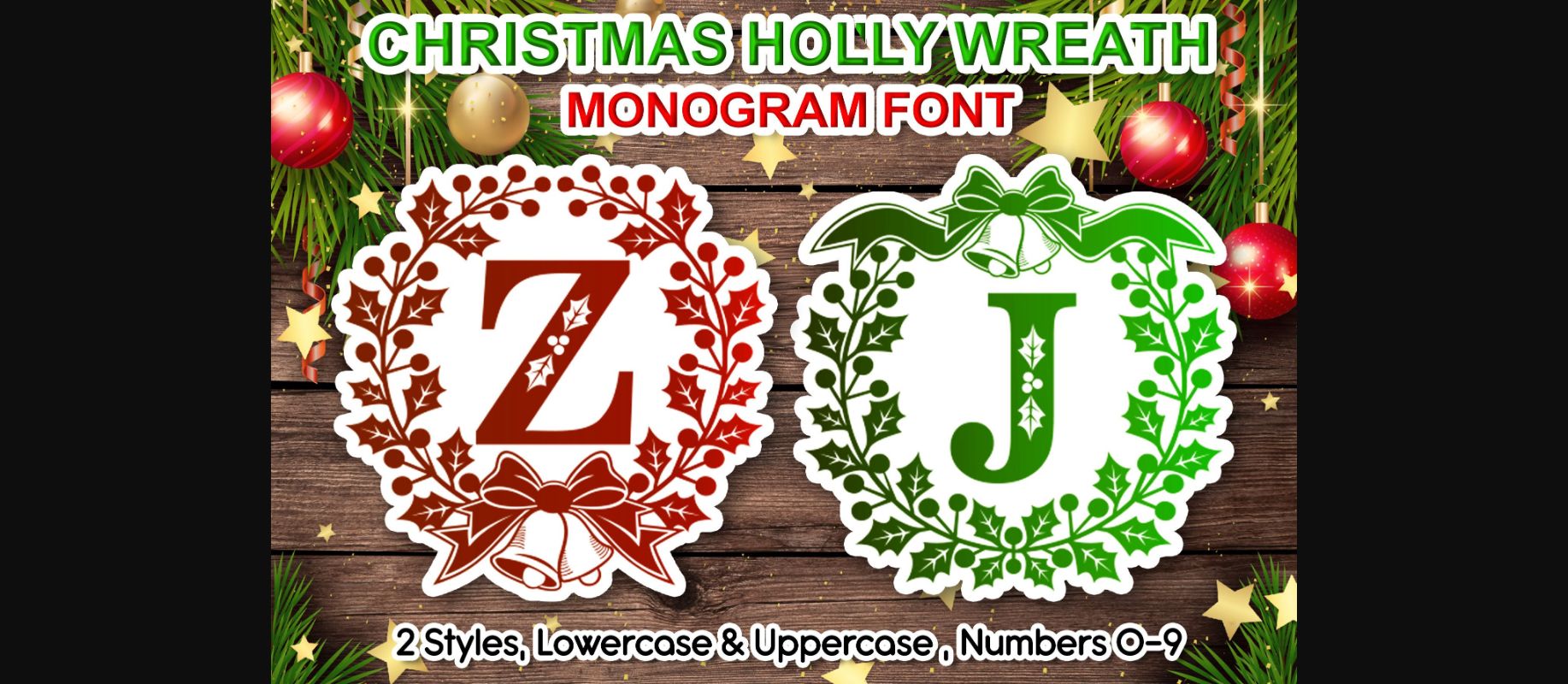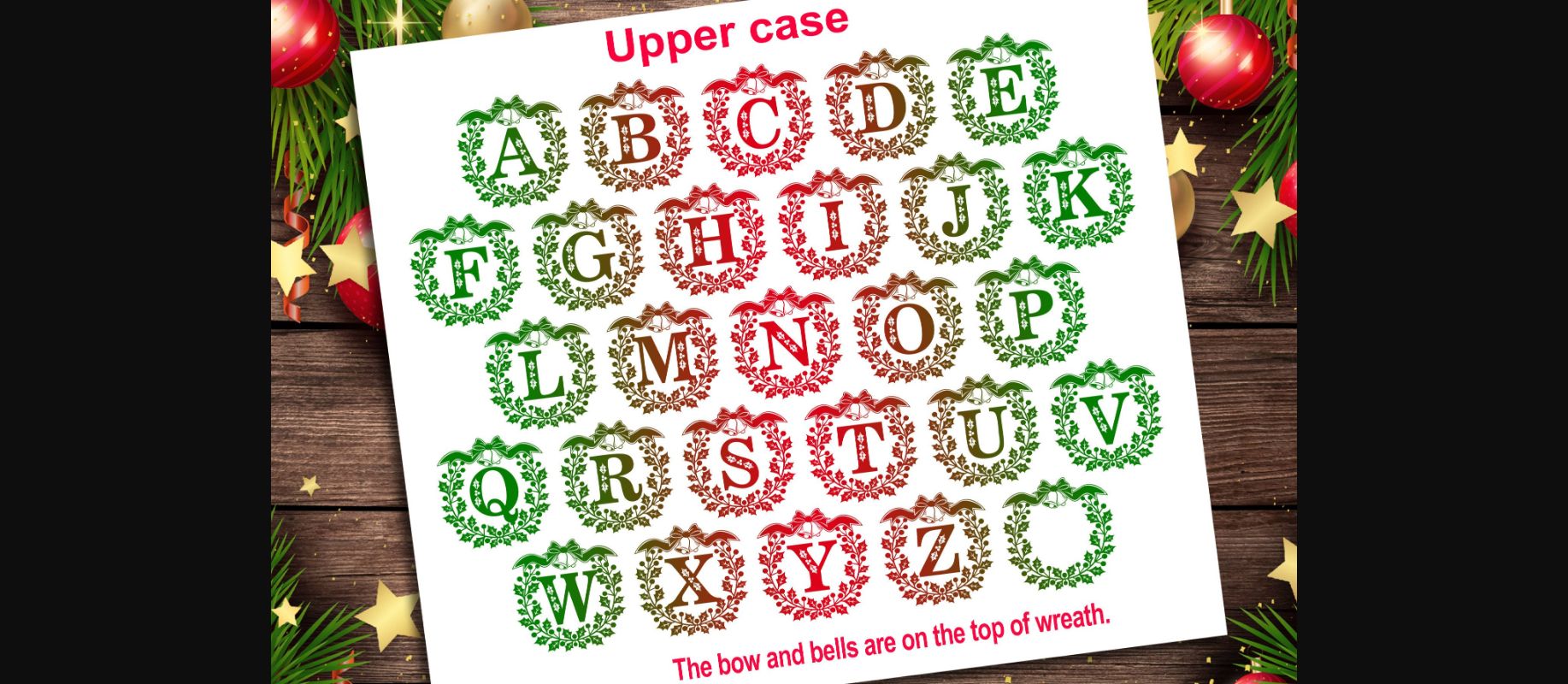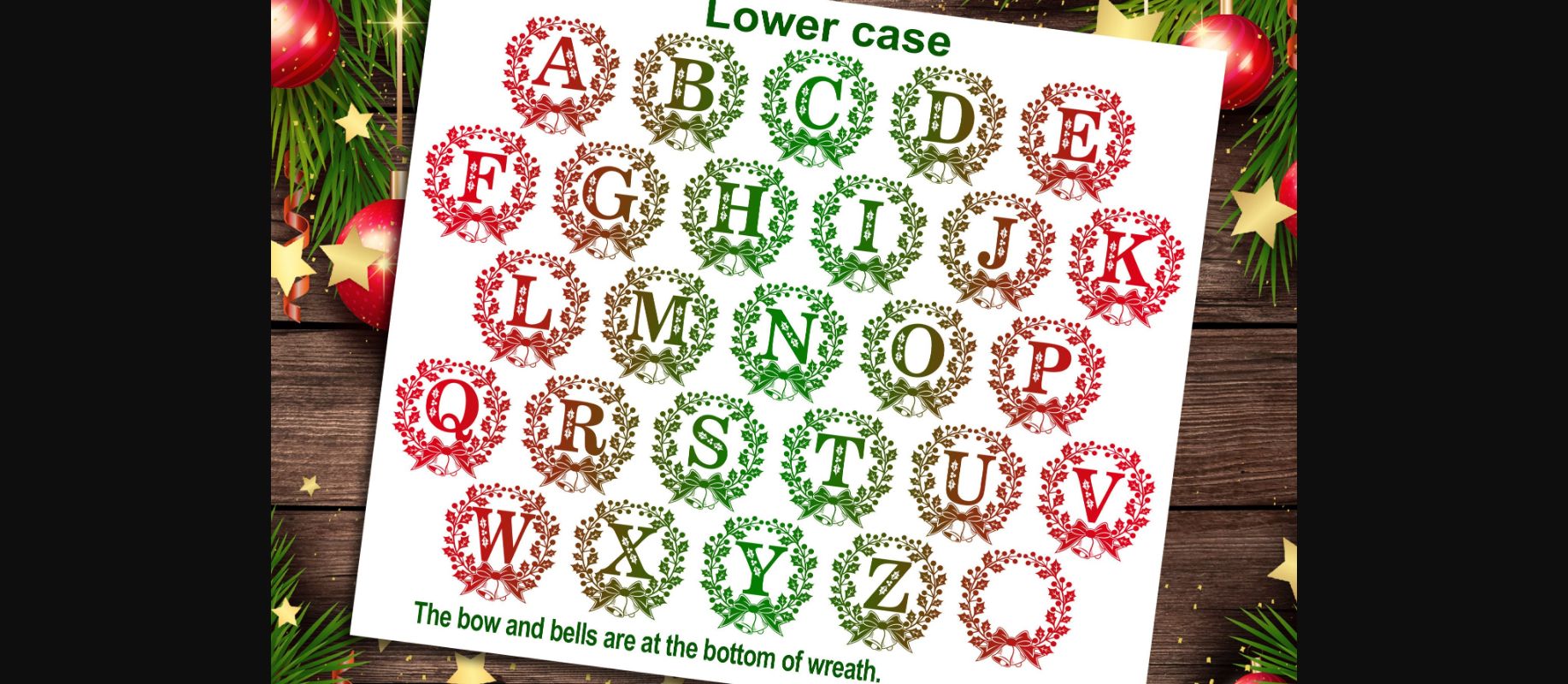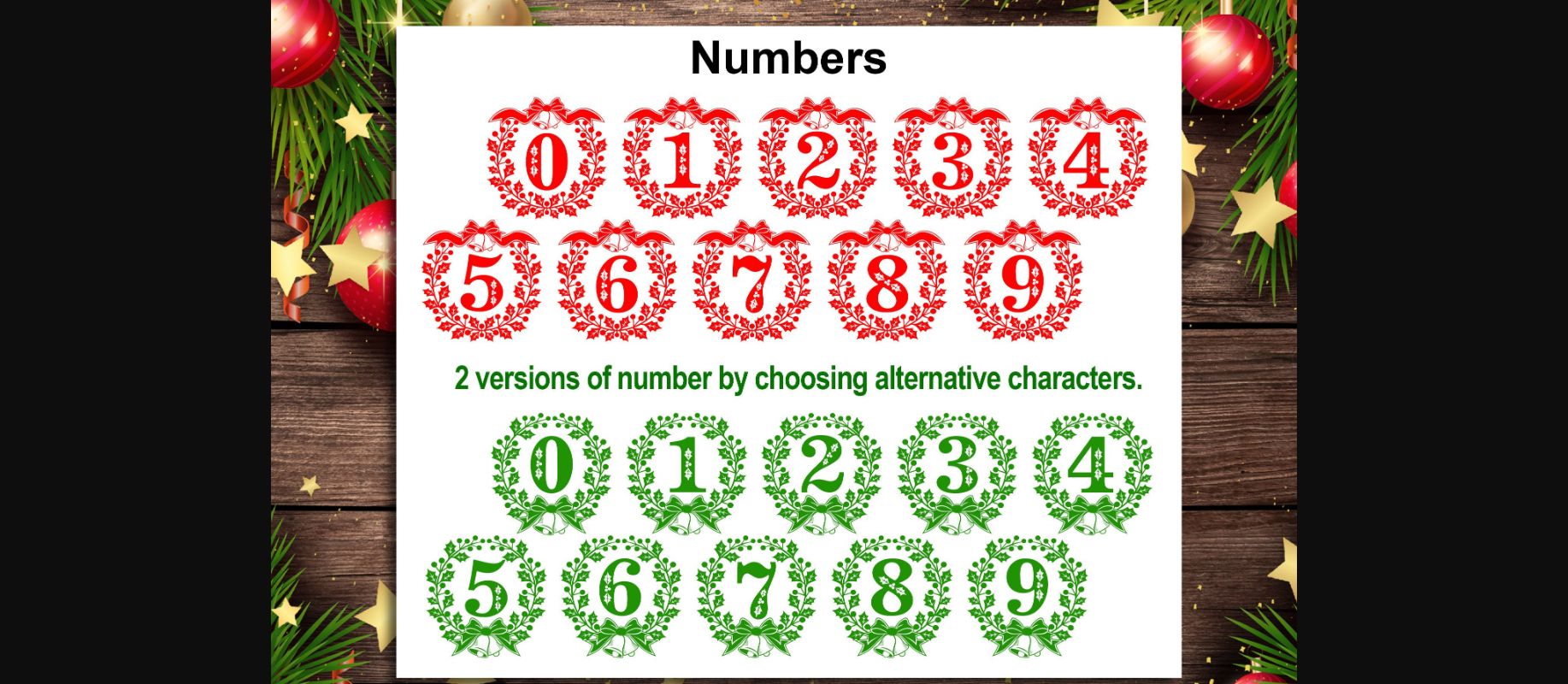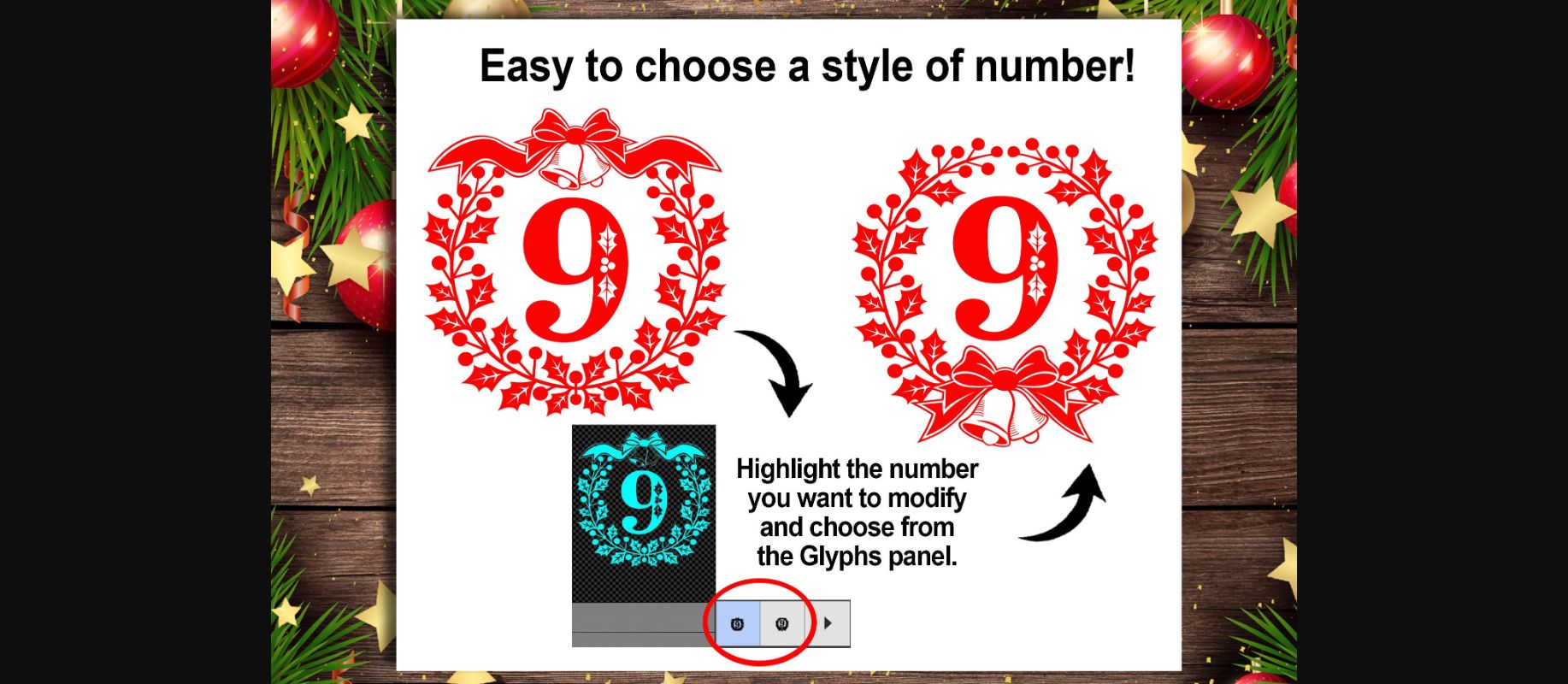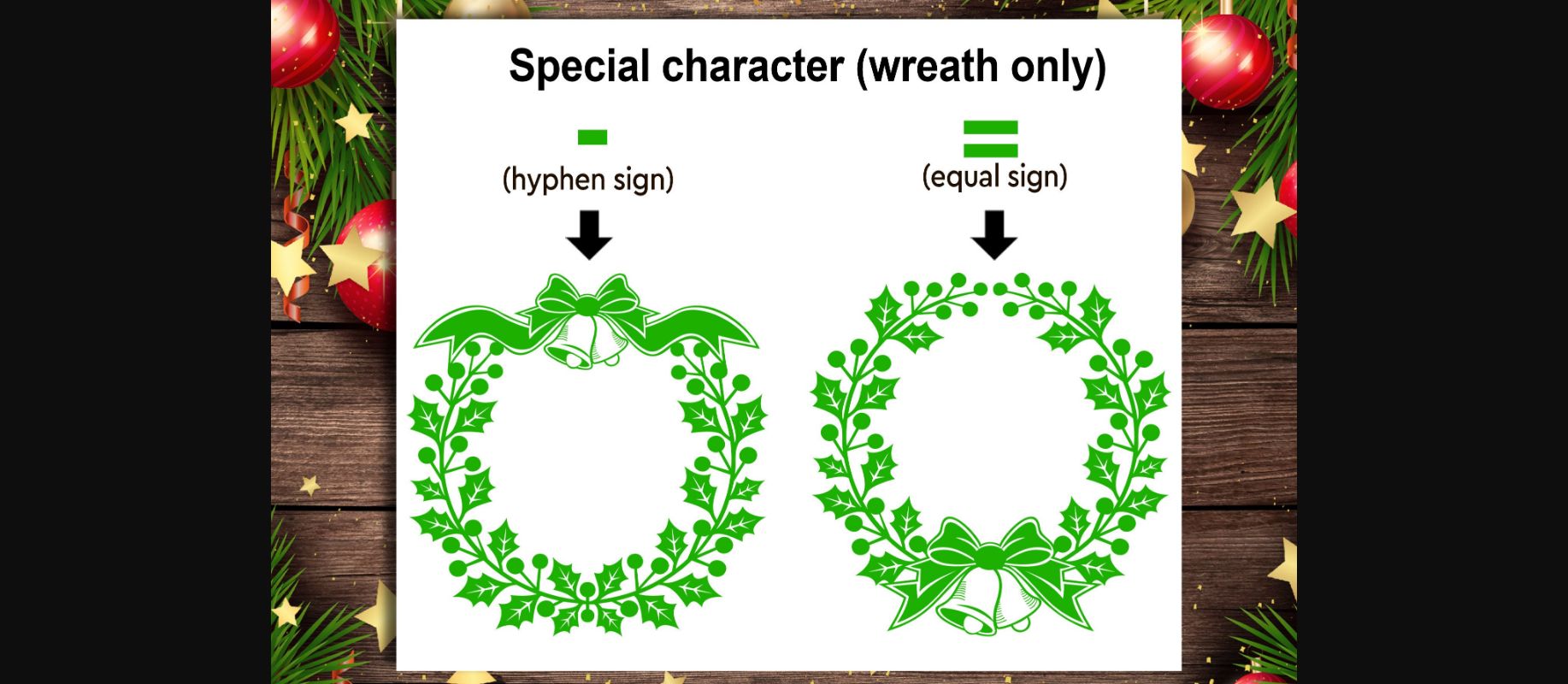
About Holly Wreath Font
Holly Wreath is a beautiful and highly detailed monogram decorative font. Its natural and unique style makes it incredibly fitting for a large pool of designs. The only limit is your imagination! Great for crafters and graphic artists alike.